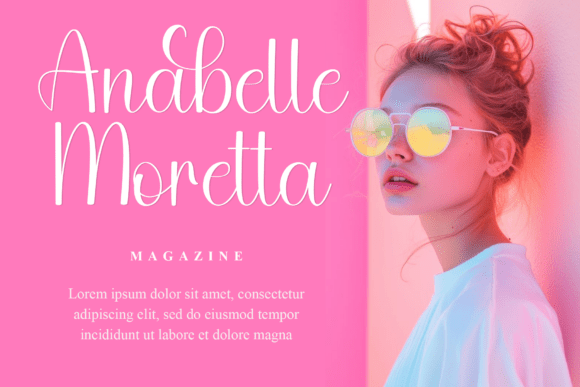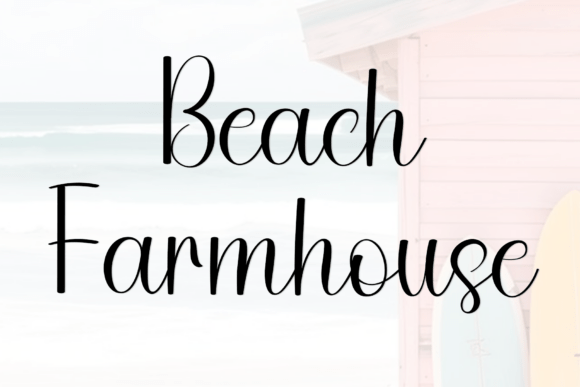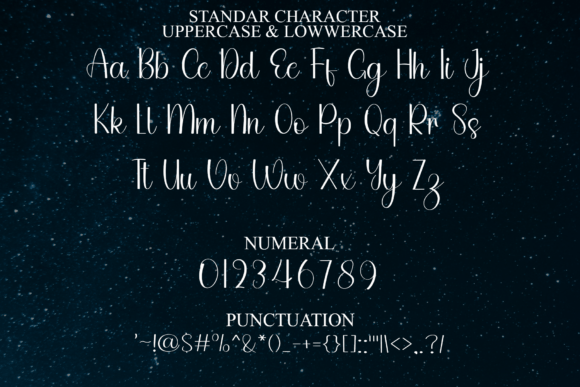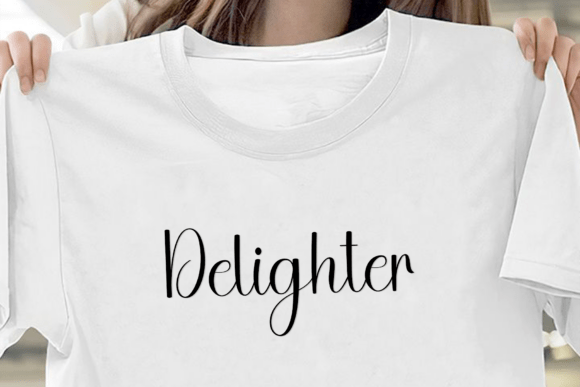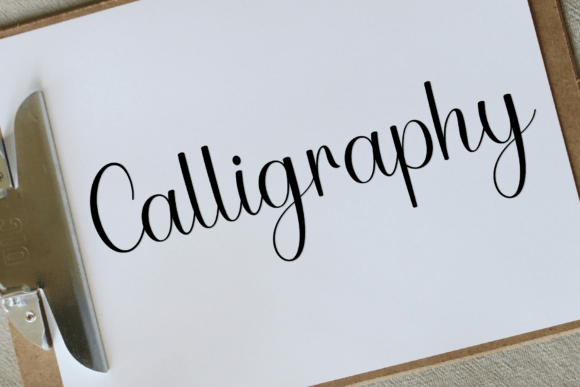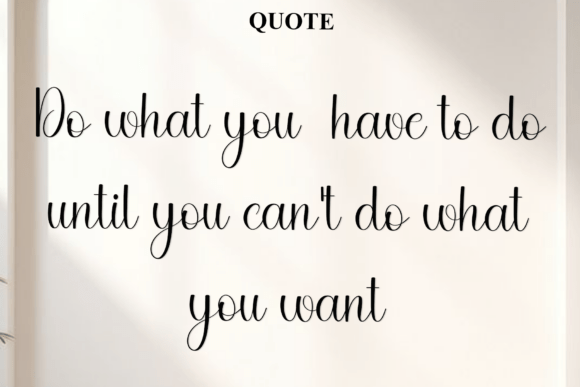
The Magic of the Holiday Season in Typography
As the snowflakes start to fall and the twinkling lights adorn the streets, we can’t help but feel a sense of nostalgia and wonder. It’s the perfect time to get creative and spread some holiday cheer through our designs. And what better way to do that than with the right font?
Enter the enchanting Barbie Font, a festive and merry typeface that captures the spirit of the holiday season. With its decorative elements and whimsical flair, it adds a touch of magic to your designs, making them perfect for greeting cards, gift tags, and holiday-themed projects. As a designer, you’ll love the Barbie Font for its ability to bring a cheerful and nostalgic ambiance to your words.
With its PUA encoding, accessing all the amazing glyphs and ligatures is a breeze, making it a valuable addition to your design arsenal.
Key Features of Barbie Font
- Font Family: The Barbie Font is a custom-designed font, however, a similar font is available as a font family called “Barbie Font” which is a sans-serif typeface.
- Unique Characteristics: The Barbie Font is known for its playful and feminine appearance, with rounded shapes and soft lines, making it suitable for use in children’s products and feminine branding.
Barbie Font Review
The Barbie Font is a fun and playful script font that immediately evokes a sense of whimsy and nostalgia. ✨ Its cursive lines and rounded edges give it a soft, feminine touch that’s perfect for projects that need a touch of sweetness. ✨
Pros:
- Highly customizable: The Barbie Font offers a range of styles and weights, making it easy to find the perfect fit for your project.
- Perfect for branding: With its unique and recognizable design, the Barbie Font is a great choice for companies looking to create a memorable brand identity.
- Great for titles and headings: The Barbie Font is perfect for grabbing attention and making a statement.
Cons:
- May not be suitable for body text: Due to its playful and decorative design, the Barbie Font may not be the best choice for large blocks of text.
- Limited legibility at small sizes: The Barbie Font may become difficult to read when used at very small sizes.
- May not be suitable for formal projects: The Barbie Font has a very playful and childlike quality to it, which may not be suitable for formal or professional projects.
- ⚠️ Limited font pairing options: Due to its unique design, the Barbie Font may be difficult to pair with other fonts.
Overall, the Barbie Font is a great choice for projects that need a touch of whimsy and playfulness. While it may have some limitations, its unique design and high level of customization make it a valuable addition to any designer’s toolkit.
Tips for Getting the Most Out of the Barbie Font
Use the Barbie Font for titles, headings, or body text to add a touch of elegance and sophistication to your design.
Combine the Barbie Font with other playful fonts to create a unique and eye-catching design.
Use the font in bold or italic styles to add emphasis and create visual interest.